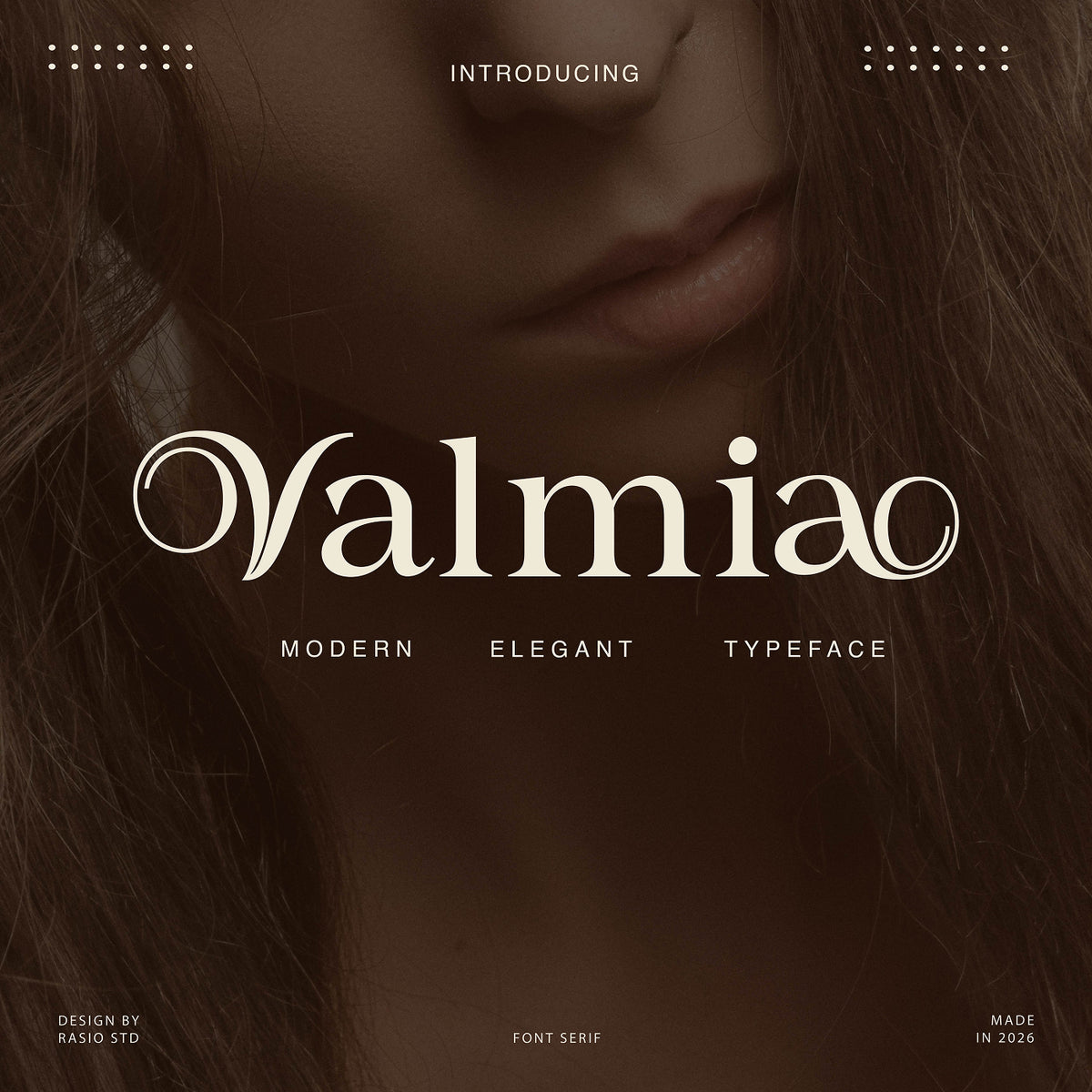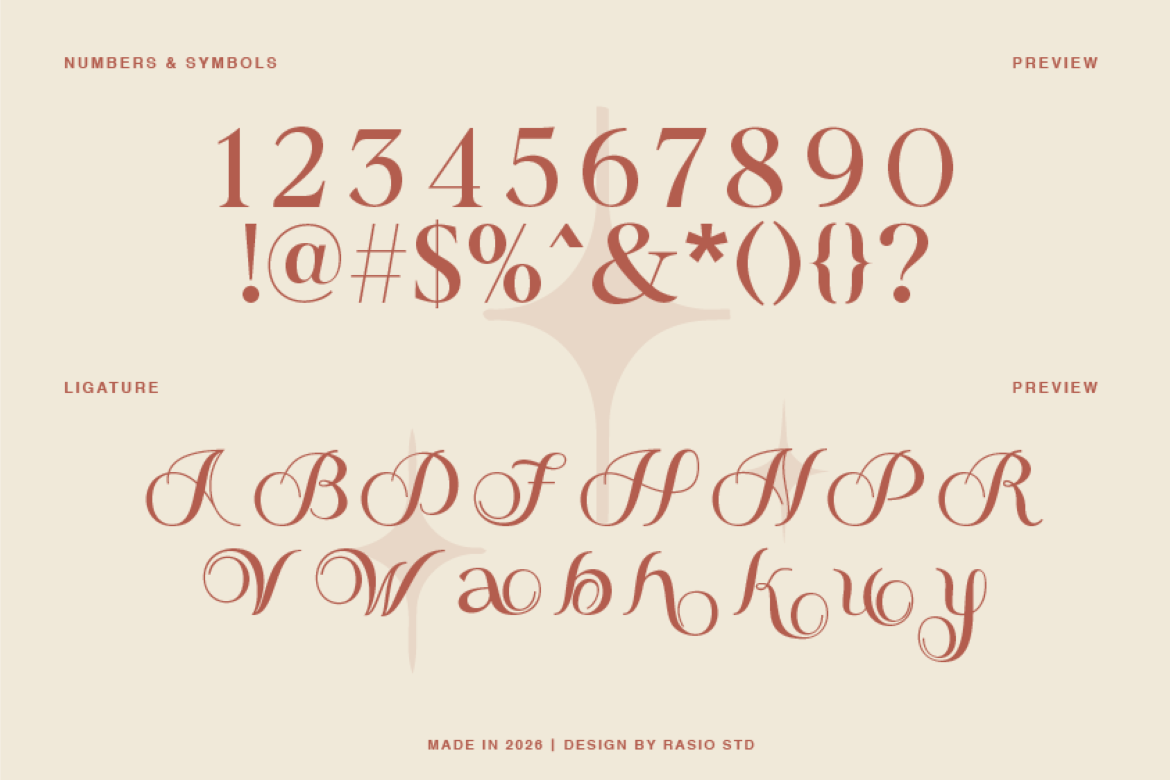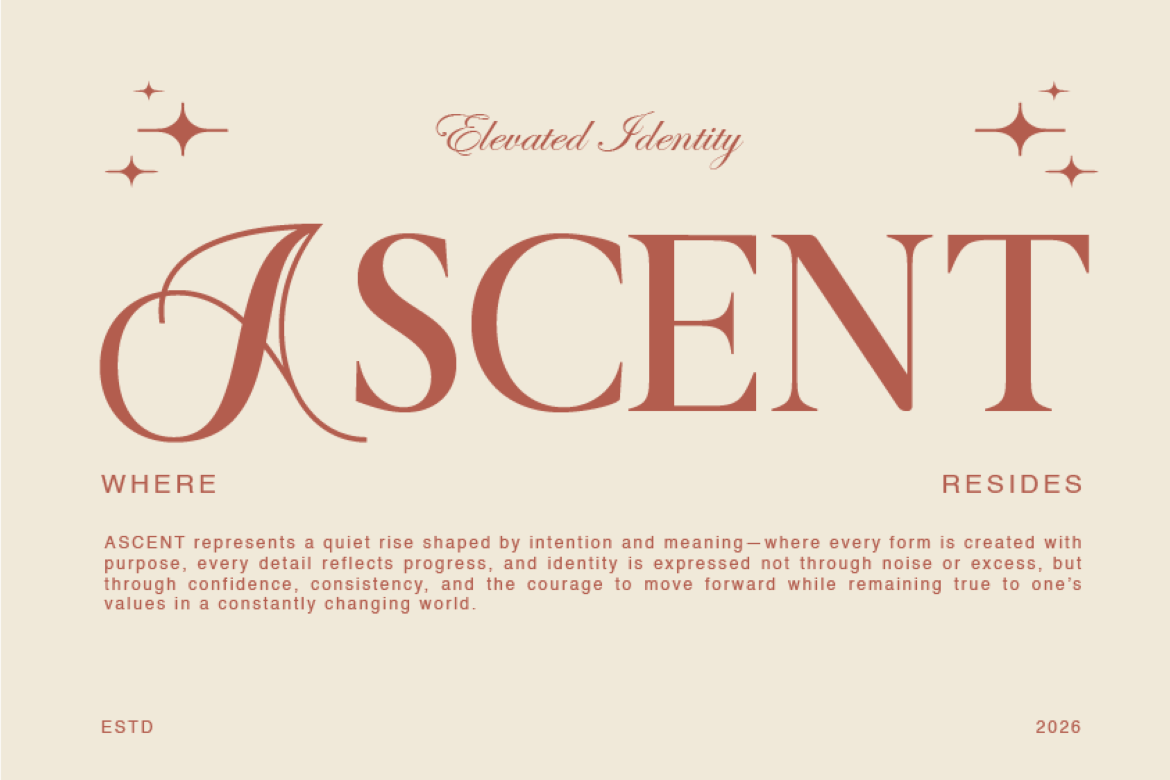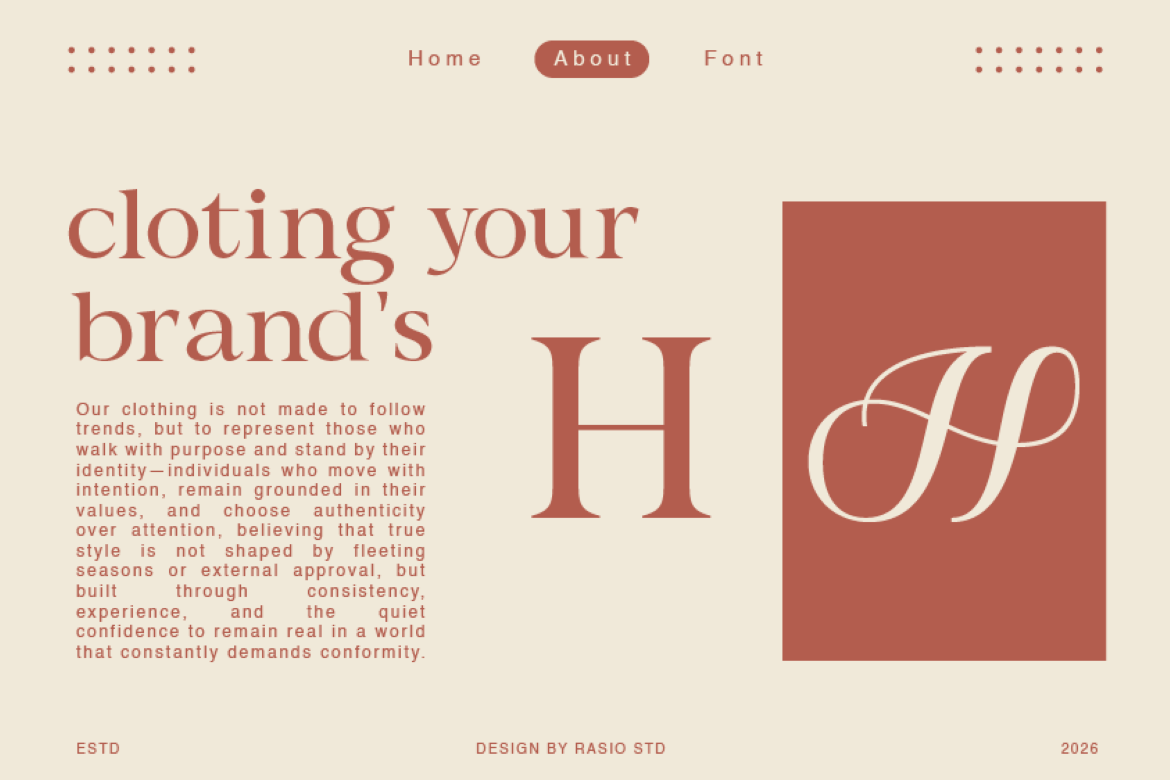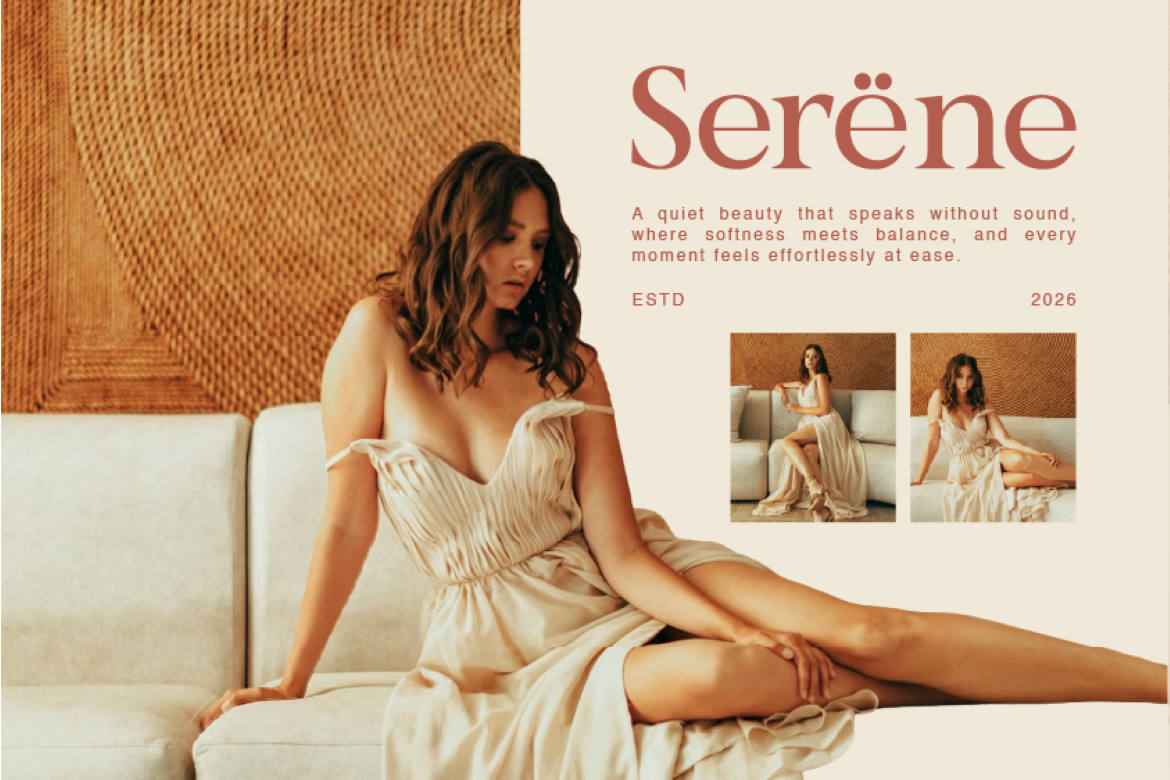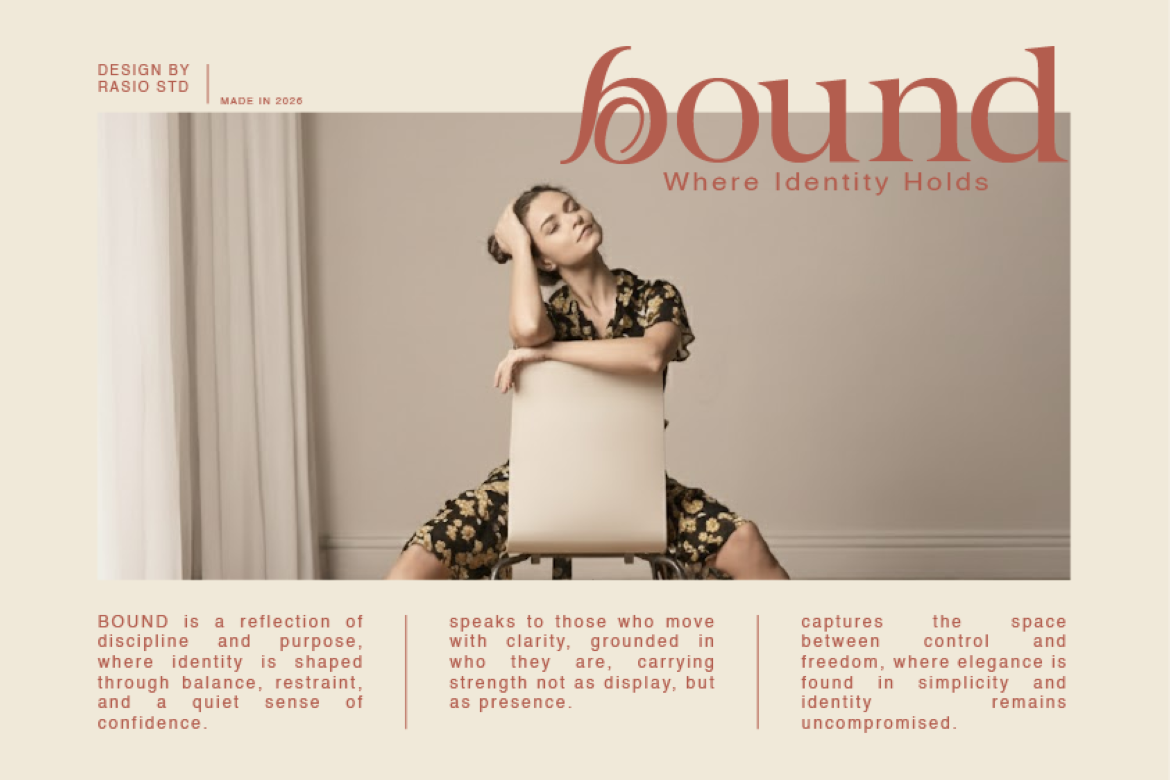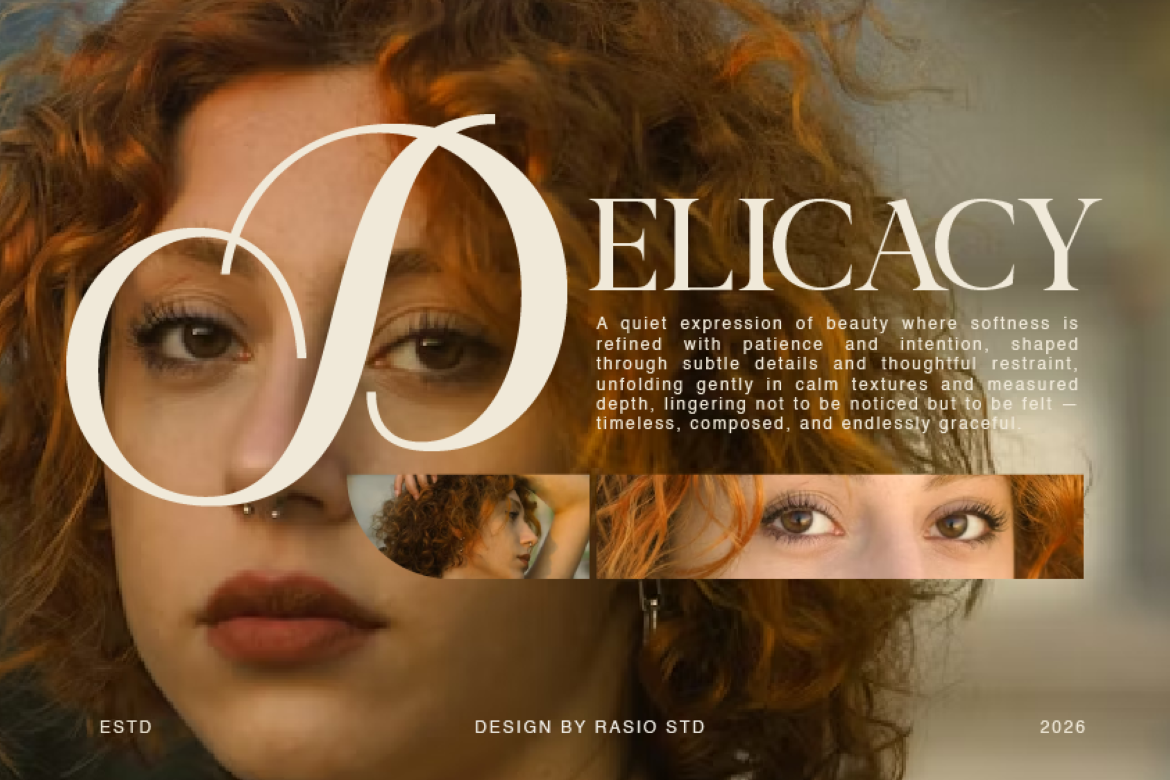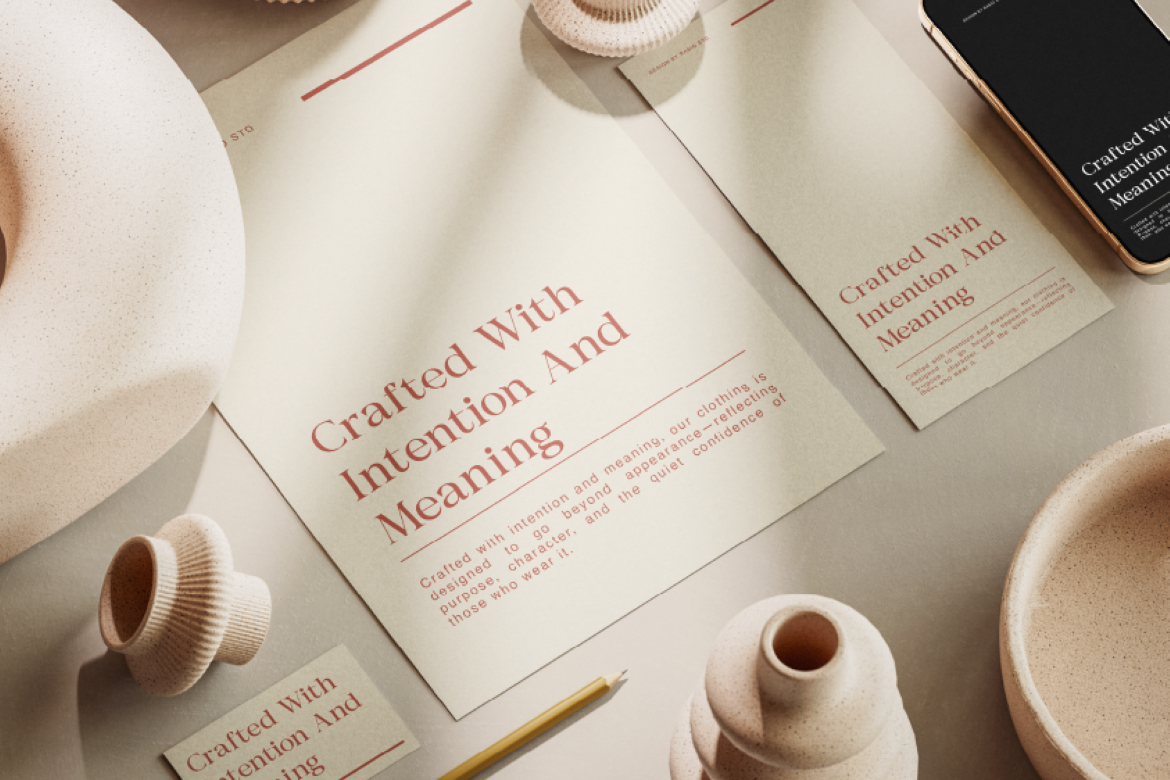
Valmia Modern Elegant Typeface Font
Valmia is a modern and refined serif typeface designed for elegance, versatility, and visual harmony. Featuring graceful curves, subtle contrast, and sophisticated terminals, it includes a full set of uppercase and lowercase letters, numerals, and punctuation making it suitable for both print and digital use. With soft, flowing strokes and high readability, Valmia excels in editorial headlines, luxury branding, fashion layouts, and refined editorial design.
Relevance and Use Cases is perfect for designers and brands that want to communicate sophistication and timeless style. Its graceful letterforms make it a perfect choice for high‑end branding, luxury packaging, magazine covers, editorial layouts, wedding stationery, beauty product campaigns, and premium lifestyle graphics.
Ligatures Support
Valmia is a modern serif typeface featuring uppercase and lowercase letters, numerals, punctuation, and ligature support. It is available in OTF, TTF, and WOFF formats for print and digital use.